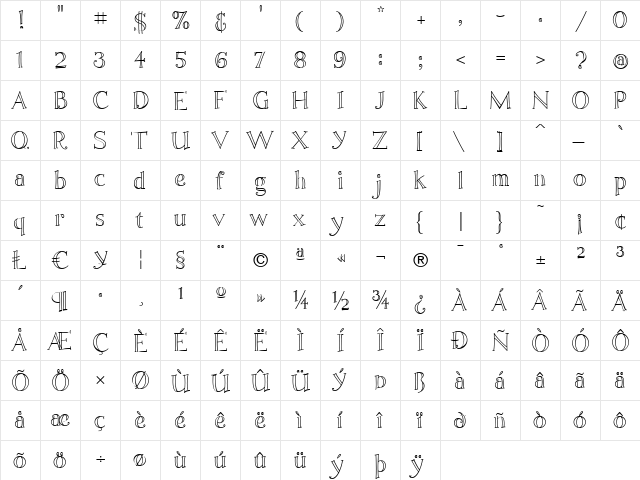
Fiddlestix Outline Regular
| Foundry | TYPADELIC FONTS |
| Designer | Ronna Penner |
Design Context for Fiddlestix Outline Typeface
Fiddlestix Outline is built around its visual character rather than neutral utility — its distinctive forms are designed to make an impression at display sizes.
Font Pairing: Pair with a clean neutral sans-serif for body copy to let Fiddlestix Outline's character lead without overwhelming the composition.
Pro Tip: Use Fiddlestix Outline exclusively at display sizes — it was designed to be seen, not read at length. Let a neutral companion handle body copy.